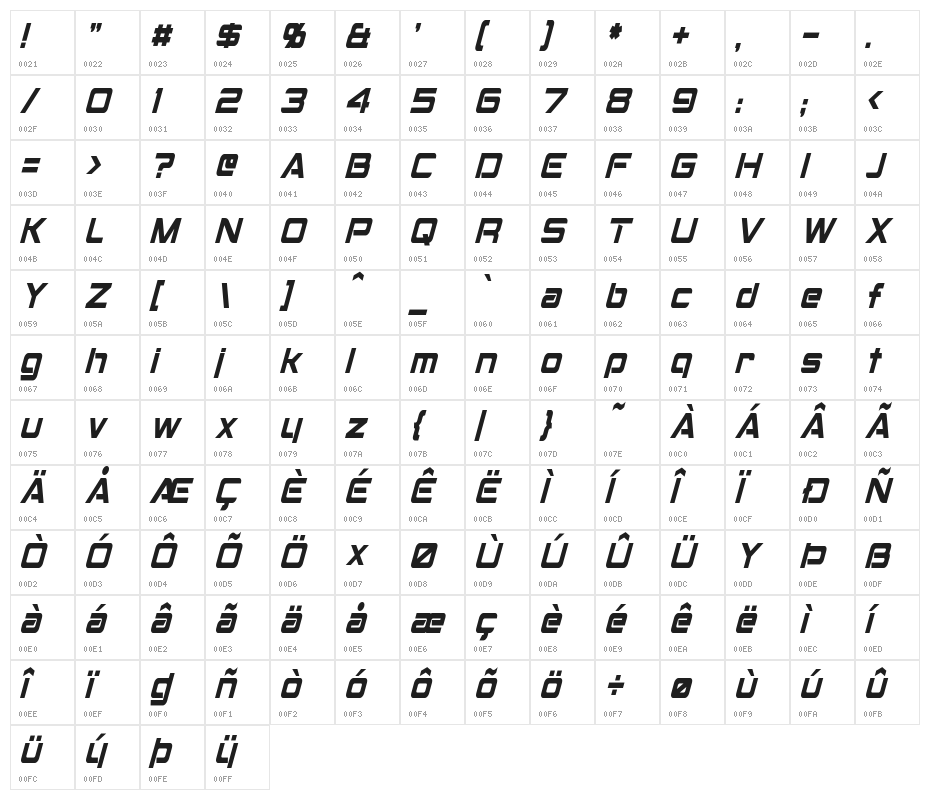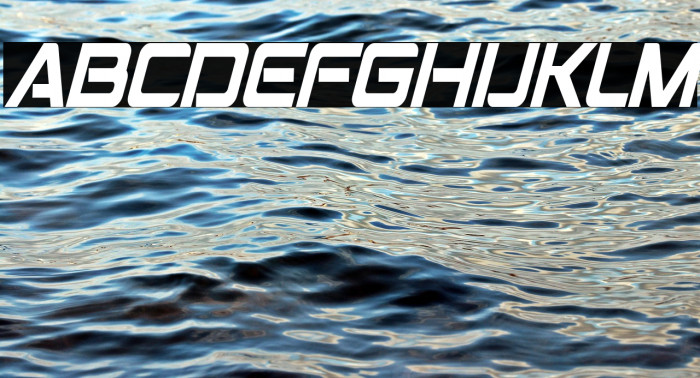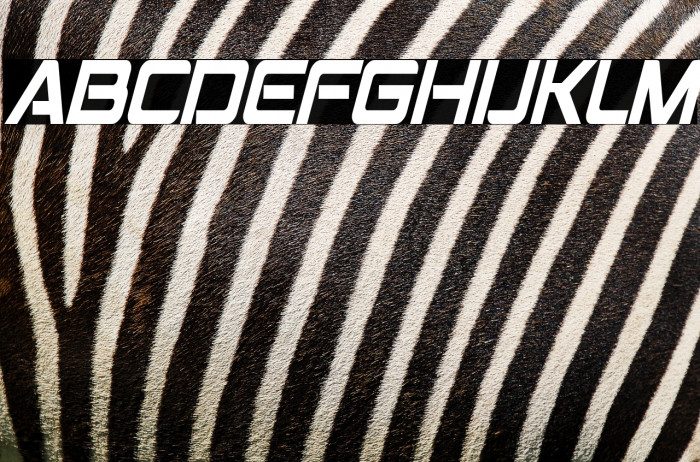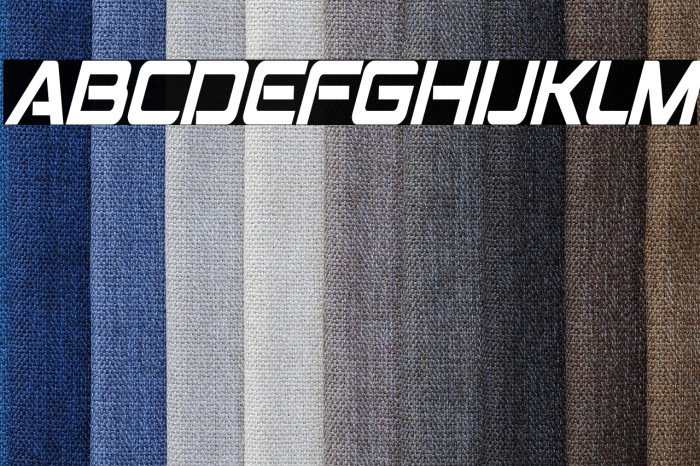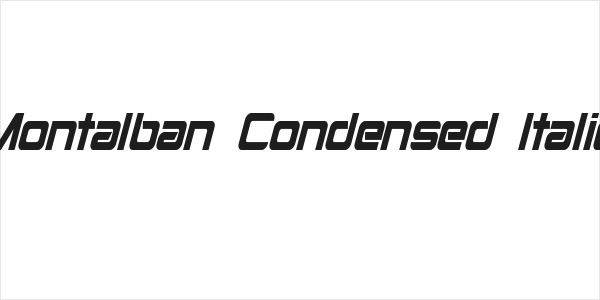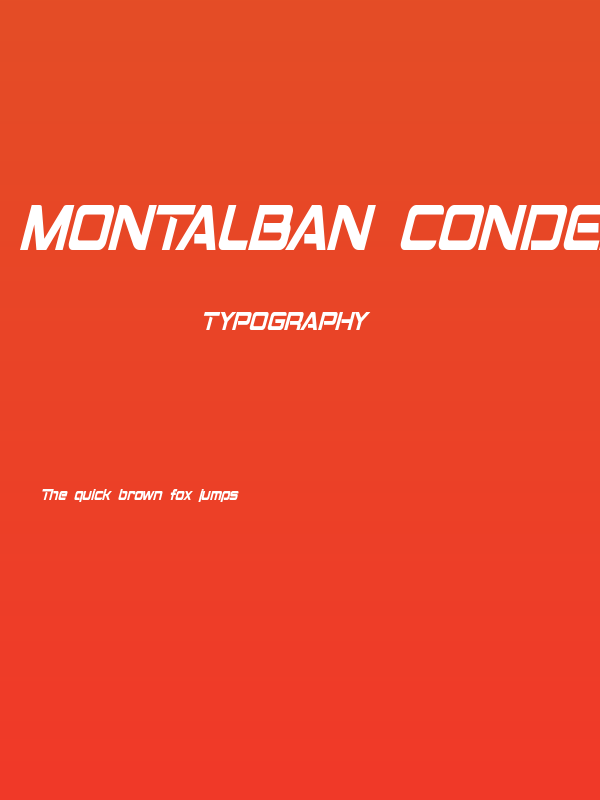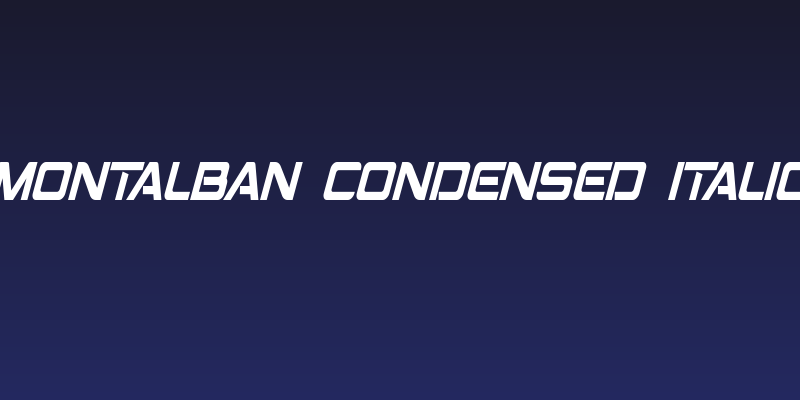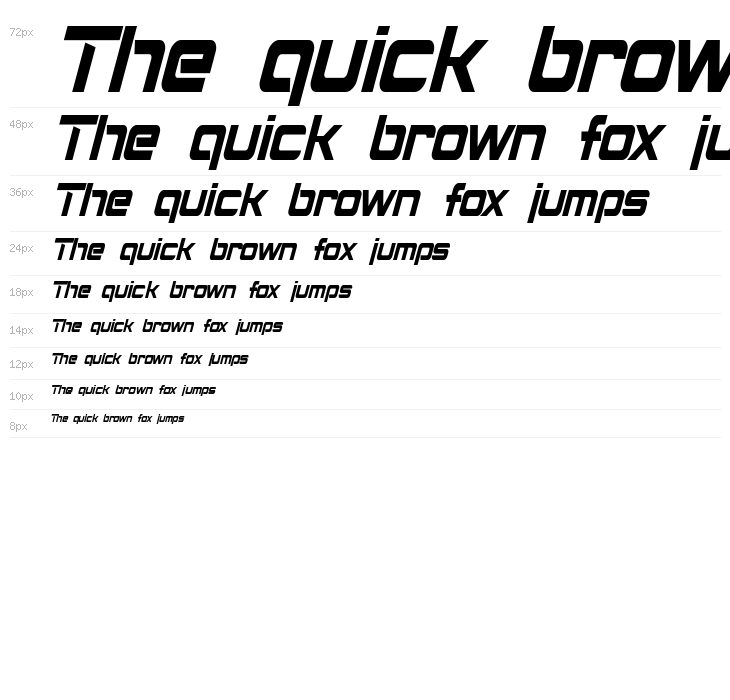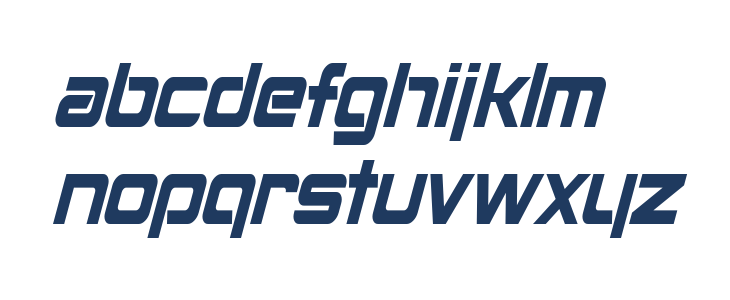
Montalban Condensed Italic Font
Montalban Condensed Italic Description
This font features a sleek, modern design with a condensed and italicized style. The characters are slanted, giving a sense of motion and dynamism. The strokes are bold and uniform, providing a strong visual impact. The uppercase and lowercase letters are well-proportioned, and the numbers are clear and distinct. Special characters are included, maintaining the same stylistic features. The overall appearance is futuristic and suitable for projects that require a contemporary and energetic look.
| Proposed Projects | Ideal for sports branding, technology logos, dynamic posters, and modern web design. |